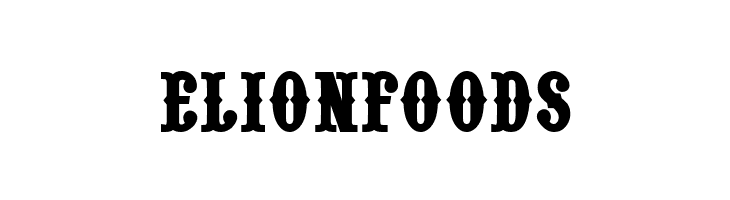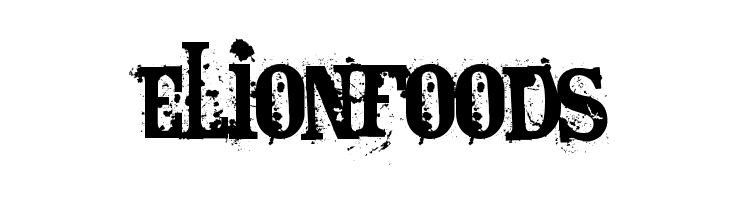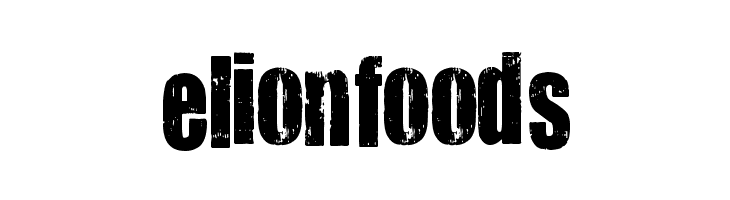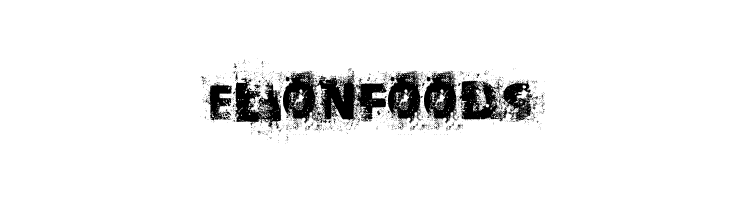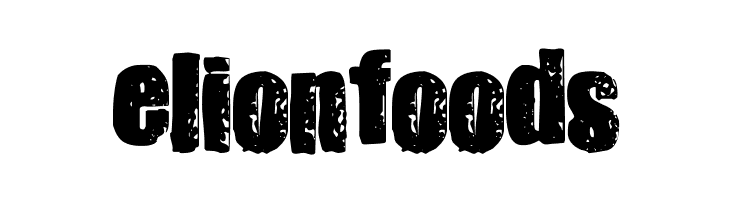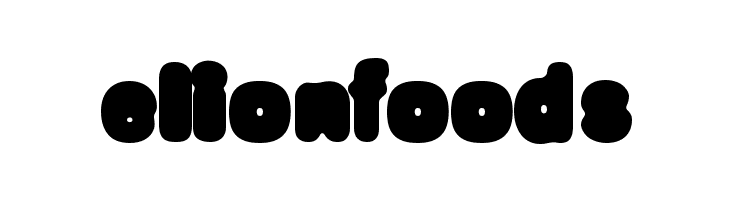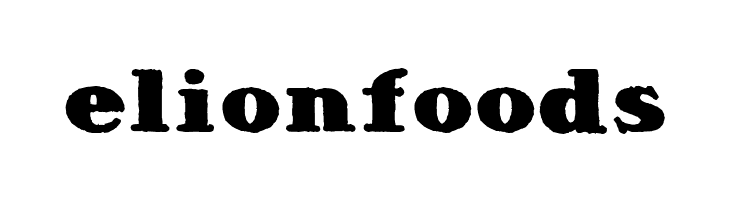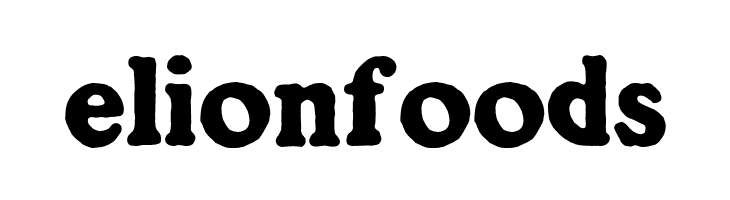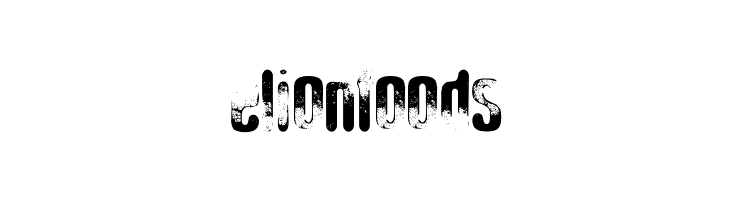
A bold, vintage-style serif font with dramatic strokes and strong presence.
A bold, distressed font with a grunge texture, ideal for impactful designs.
A bold, distressed font with a vintage, grunge texture.
A bold, distressed font with a vintage, textured appearance.
A playful, bold font with thick, rounded characters and a bubbly appearance.
A bold, rounded font with a playful and robust appearance.
A bold, distressed font with a grunge, weathered appearance.
A bold, distressed slab serif font with a grunge texture.